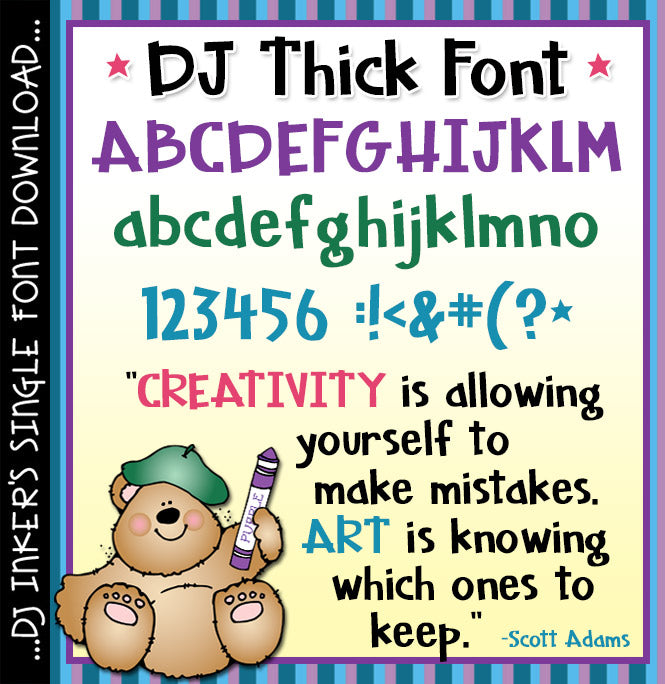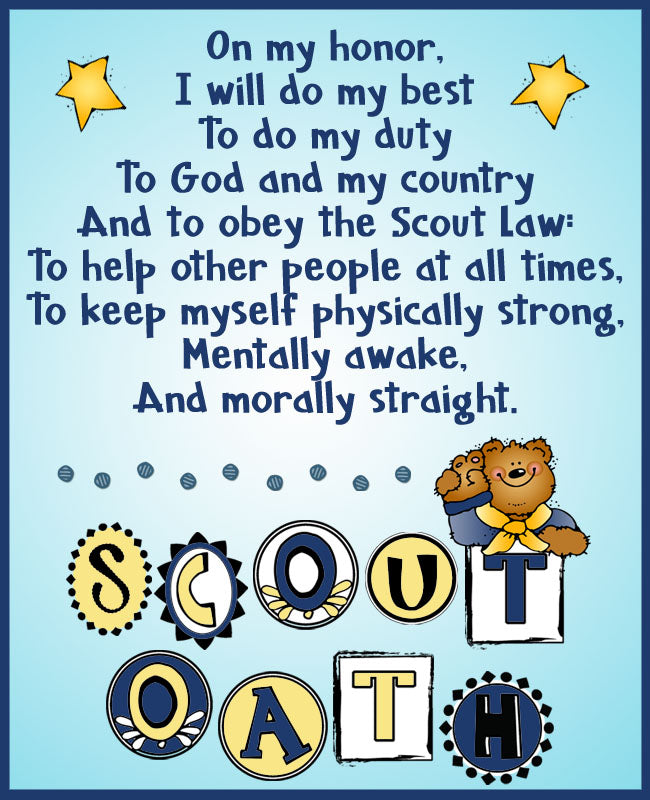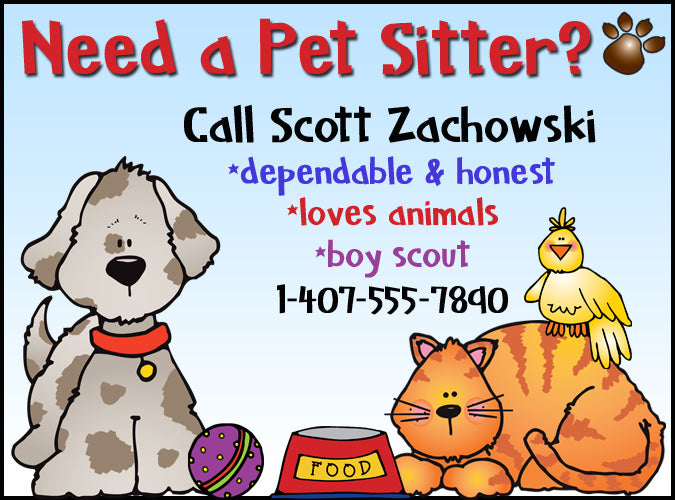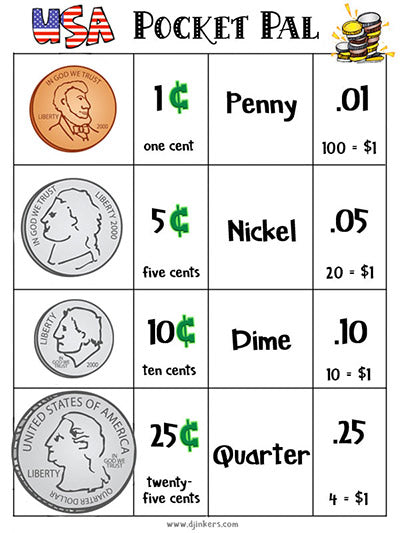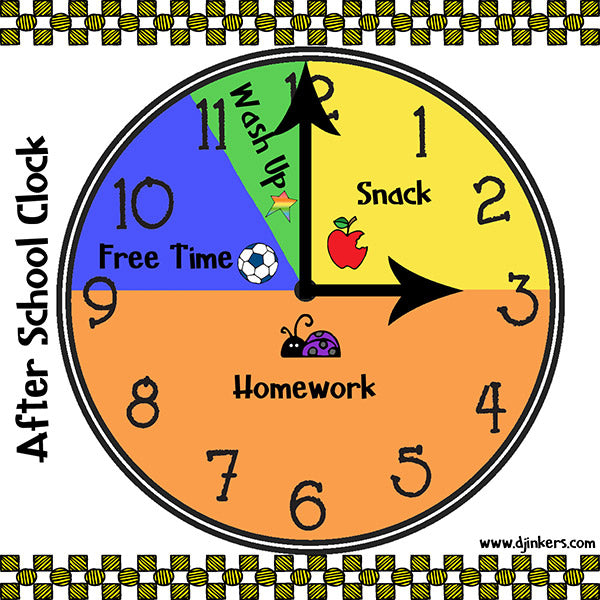
DJ Thick Font Download
You'll love our jazzy, bold DJ Thick font for any typing that needs
to really stand-out. This 'fat marker' lettering will be super-cool for
sports events, school rules, fliers, posters & headlines of any kind.
You'll love it in any size or color too.